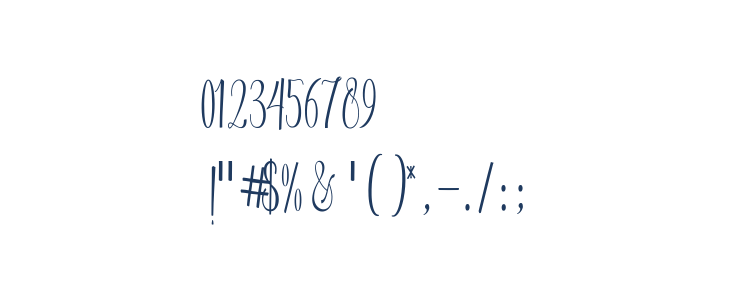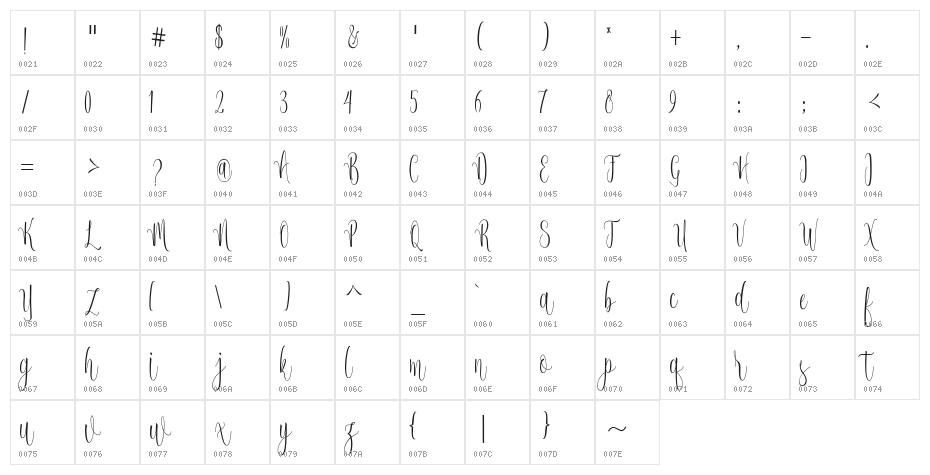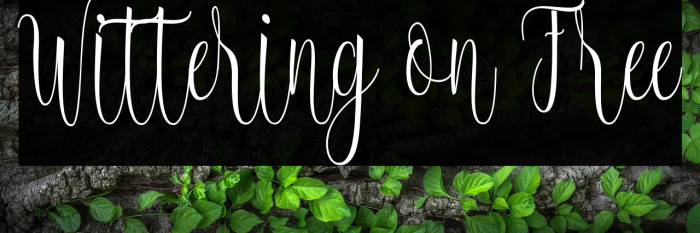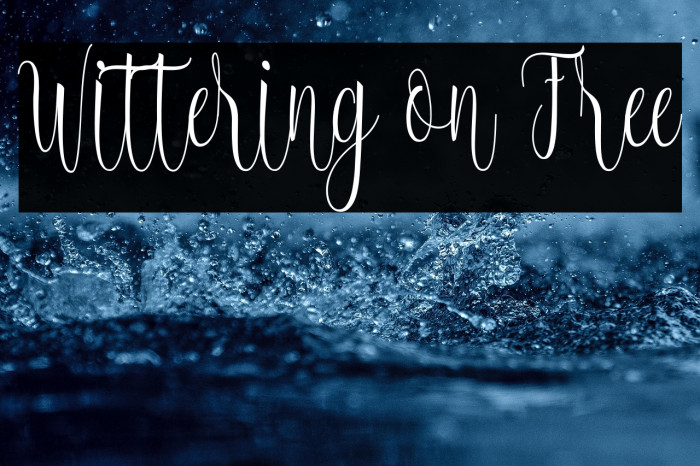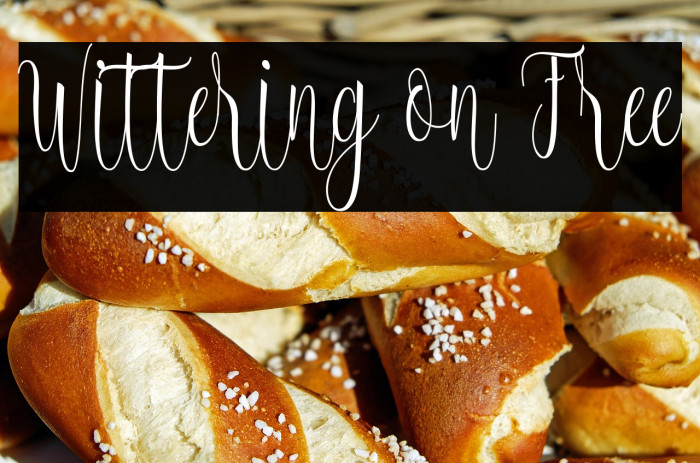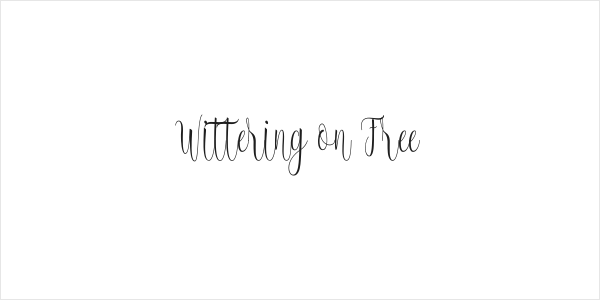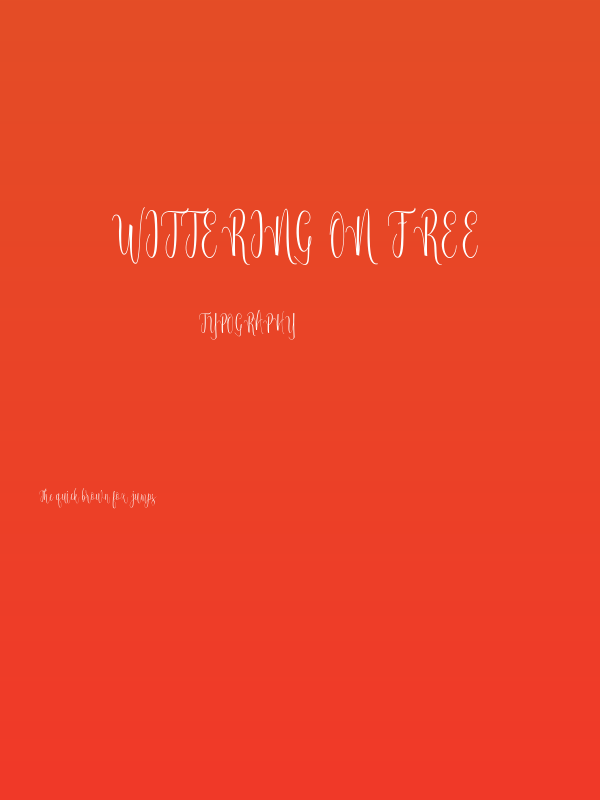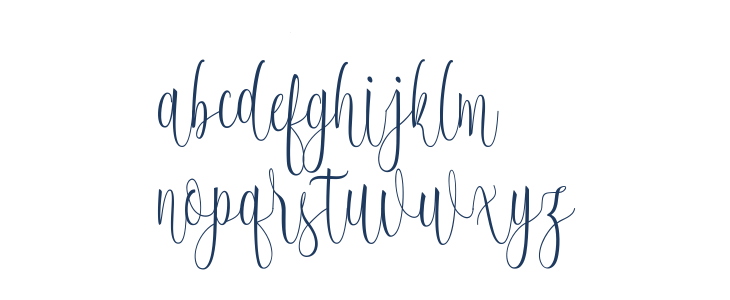
Wittering on Free Font
Wittering on Free Description
This font exudes a whimsical and playful charm with its flowing, cursive style. The letters are characterized by their elongated, looping strokes and varying line thickness, creating a dynamic and lively appearance. The uppercase letters are tall and elegant, while the lowercase letters maintain a consistent flow, enhancing readability despite their decorative nature. The numerals and special characters complement the alphabet with similar stylistic elements, ensuring a cohesive look across all text. This font's unique style makes it stand out, offering a creative flair to any design project.
Use CaseLogos, Invitations, Decorative text
Proposed ProjectsIdeal for wedding invitations, greeting cards, branding, and creative posters.